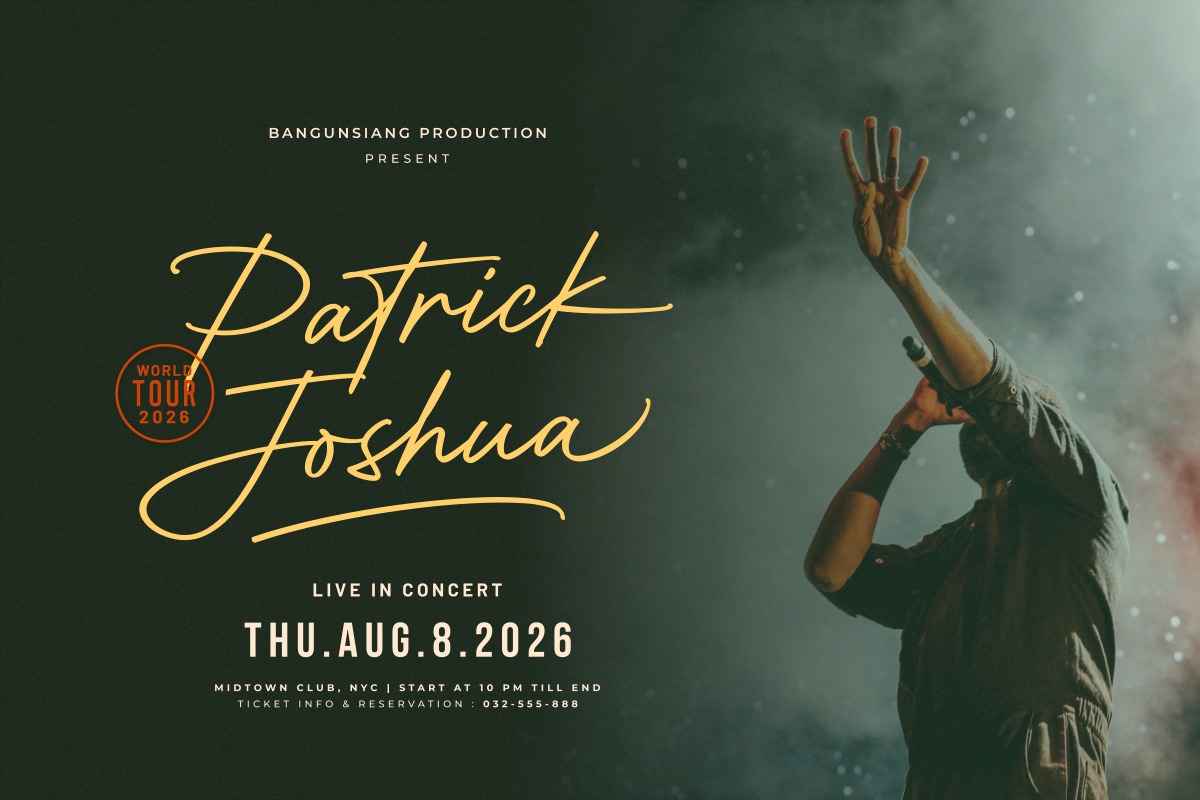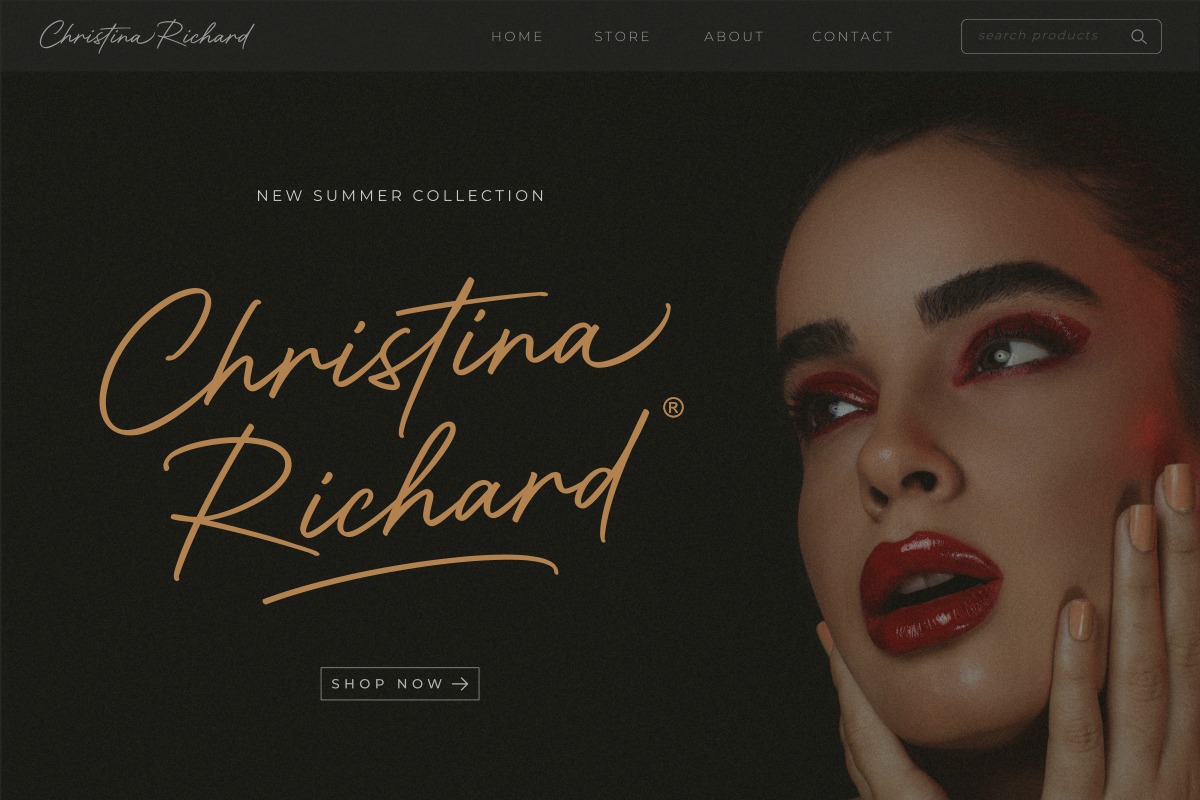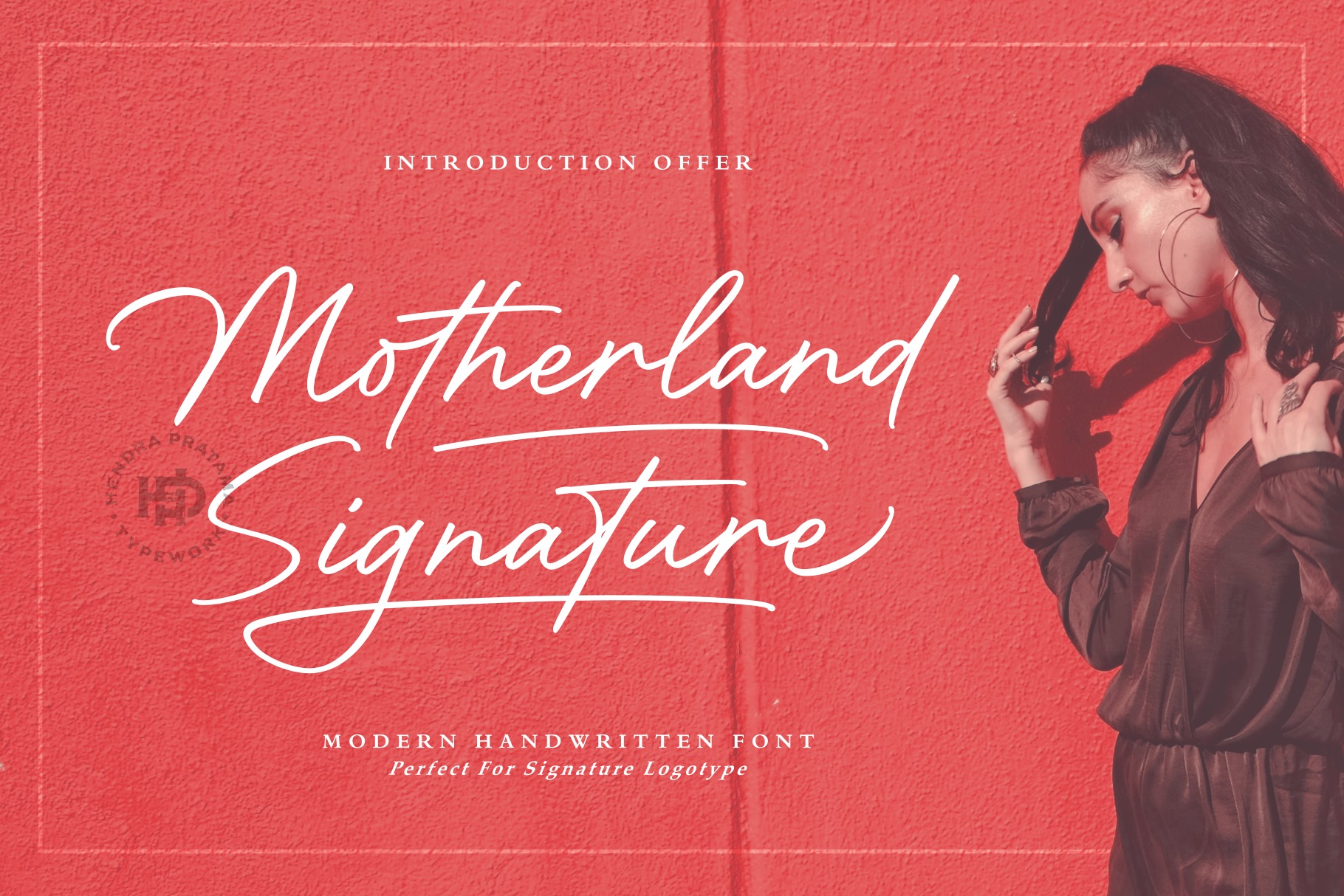
Motherland Signature Font
It’s a modern handwritten script font with slight indentations that make the font look very beautiful.This font will good used for your Business Name Card, Cosmetic Products, Poster Ads, Logotypes, for Movie or Book Titles and many more, the skies is your limit!